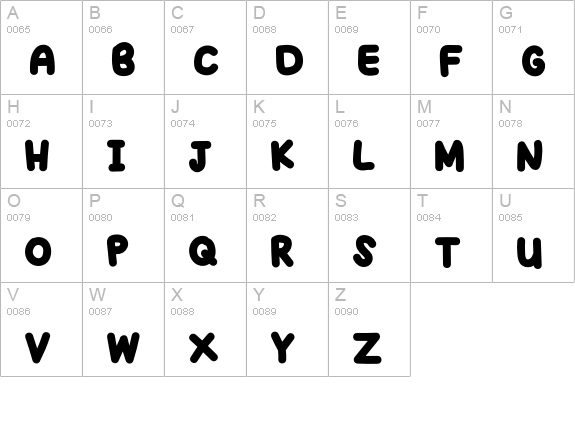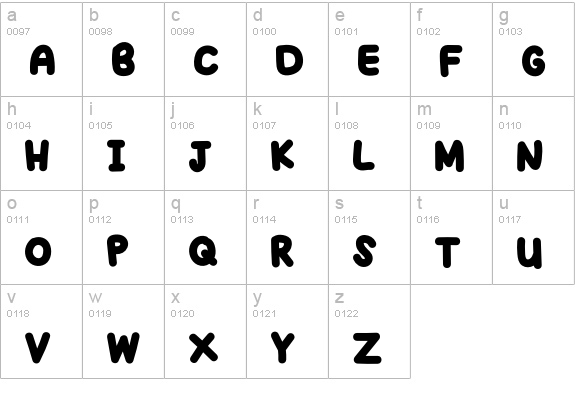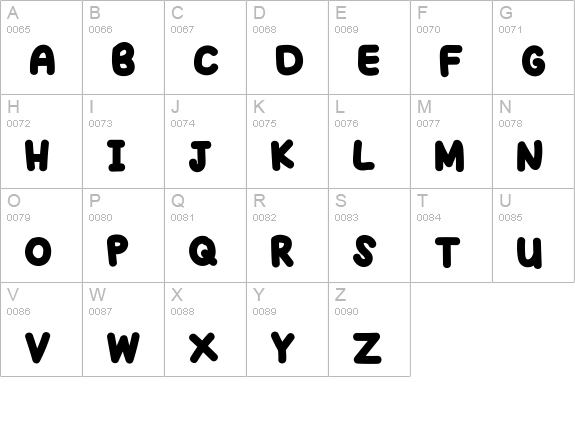
THE JHONNY TAN Font Details
THE JHONNY TAN is a free for personal use font in the Fancy > Cartoon category, designed by Fana Studio. It has been downloaded 190 times and is available for Windows, Mac and Linux.
THE JHONNY TAN font is a stylish and modern typeface that exudes elegance and sophistication. Its clean lines and sleek curves make it perfect for a wide range of design projects, from branding to editorial design. This versatile font is sure to add a touch of class to any project it is used in.